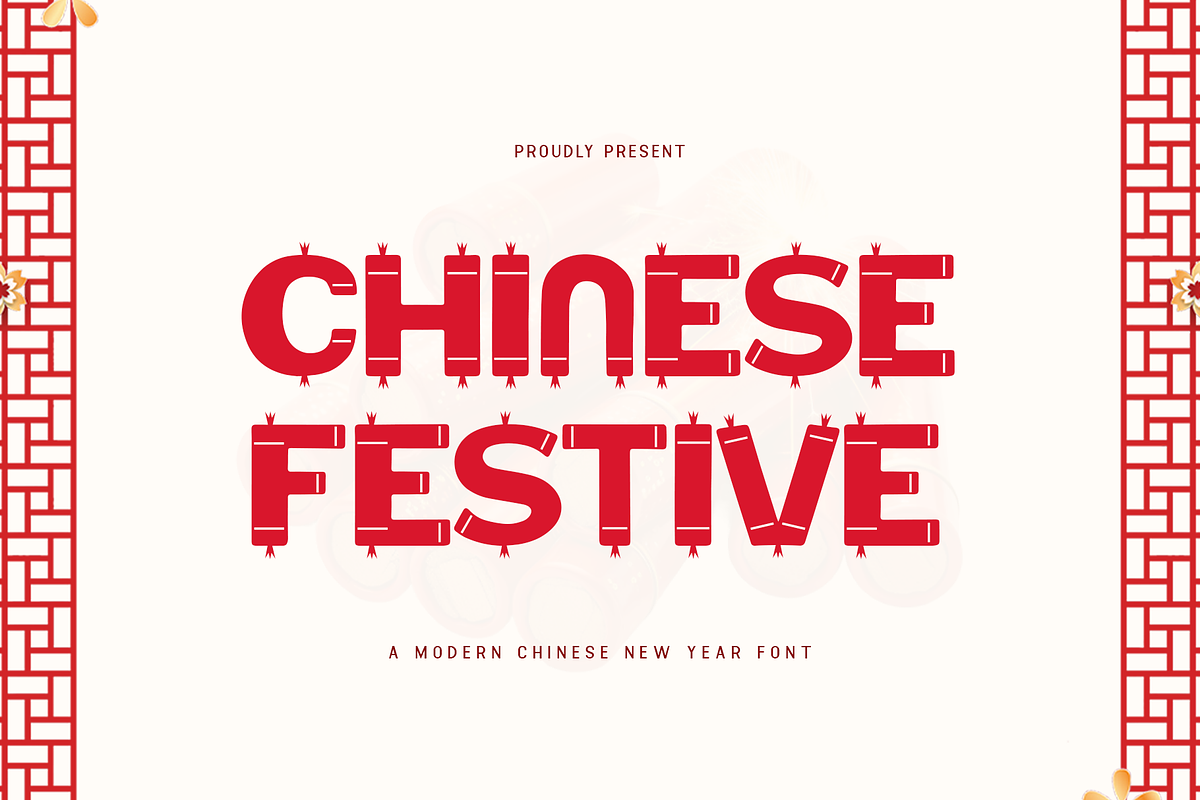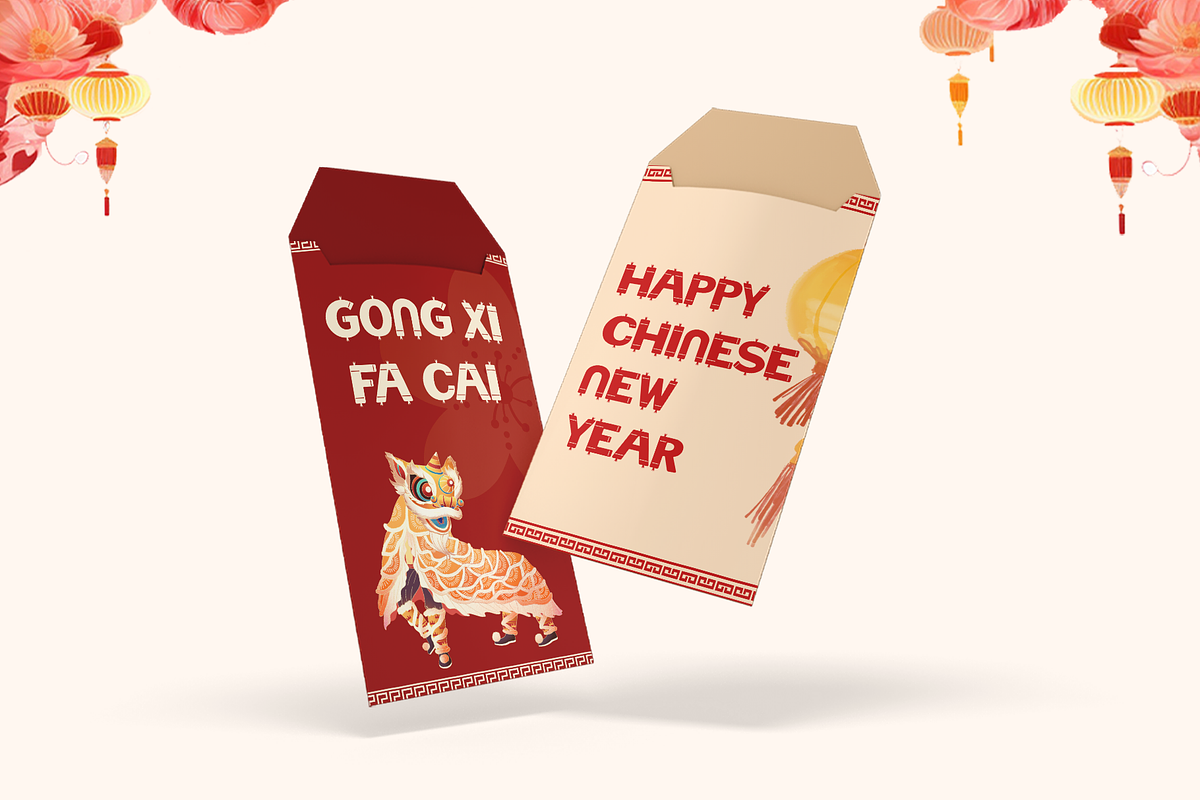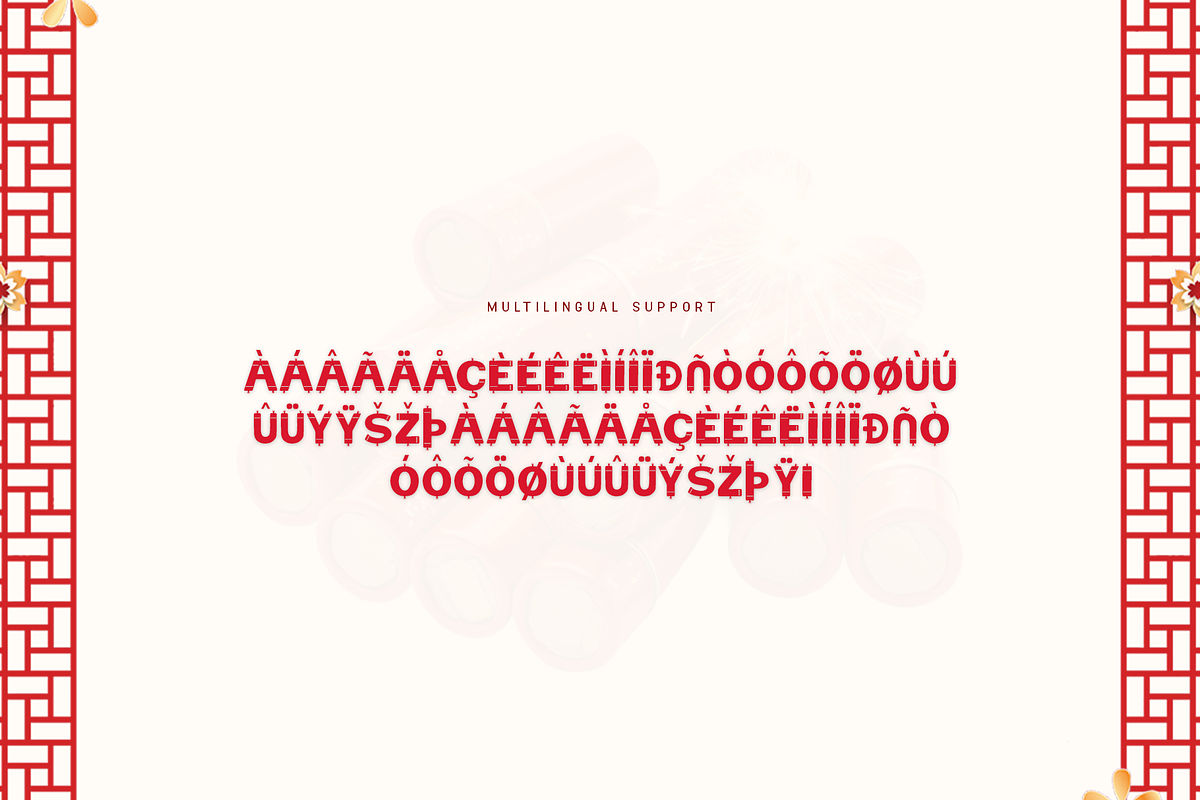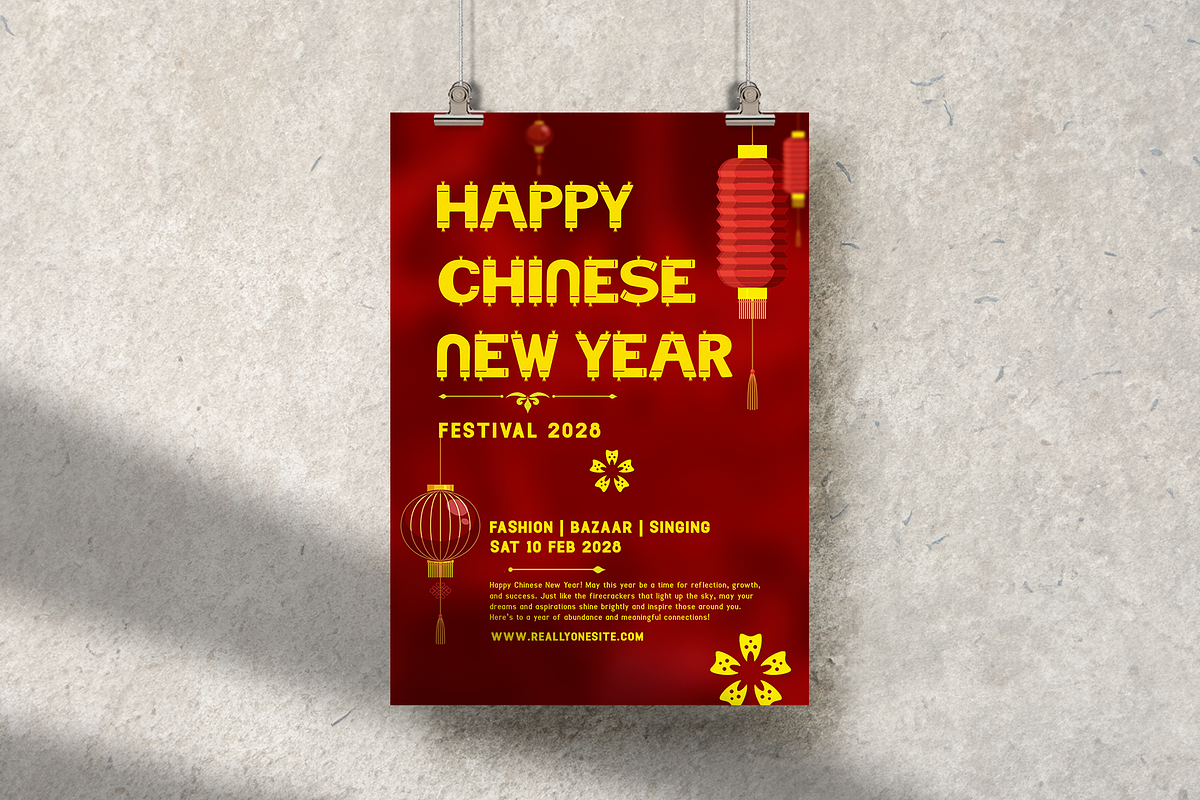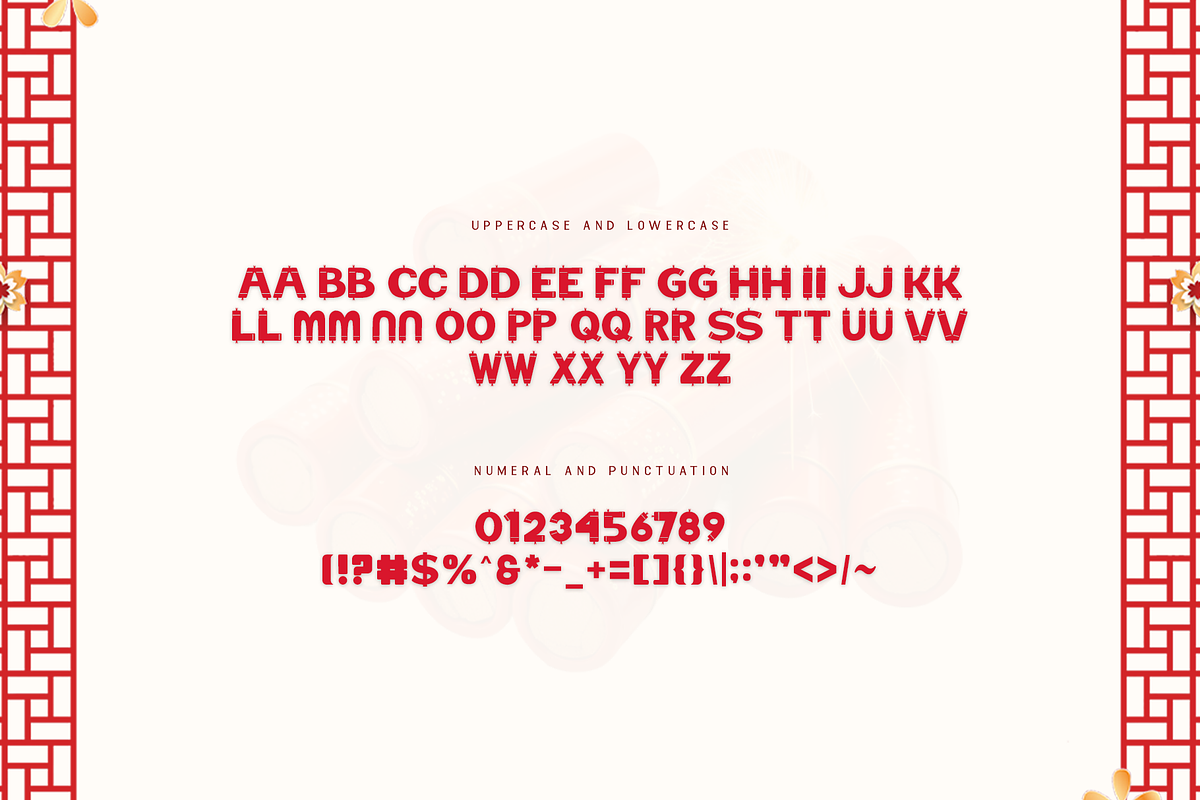
Chinese Festive-Modern Chinese Font
Chinese Festive - A Modern Chinese New Year Font
Add a festive touch to your designs with Chinese Festive, a modern typeface inspired by the joy and vibrancy of Chinese New Year. This font blends traditional elements with contemporary design, making it the perfect choice for creating celebratory visuals.
With its playful yet elegant curves, Chinese Festive is ideal for event invitations, posters, branding, and holiday promotions. It embodies the spirit of celebration, family, and prosperity, making your designs truly stand out during the festive season.
Featuring a full character set, multilingual support, and a versatile design, Chinese Festive is the ultimate font for adding charm and festivity to your Chinese New Year projects.